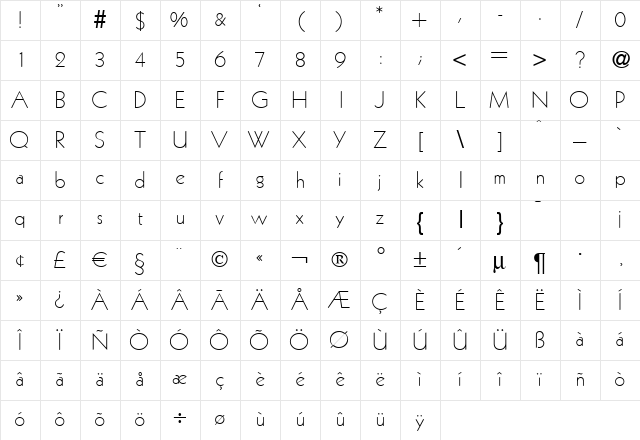
K791-Geometrical-Light Regular Free Font
K791-Geometrical-Light Regular
Design Context for K791-Geometrical-Light
K791-Geometrical-Light is a composed and adaptable typeface that performs quietly and consistently across a wide range of design contexts. Its slender proportions lend an understated elegance to any composition.